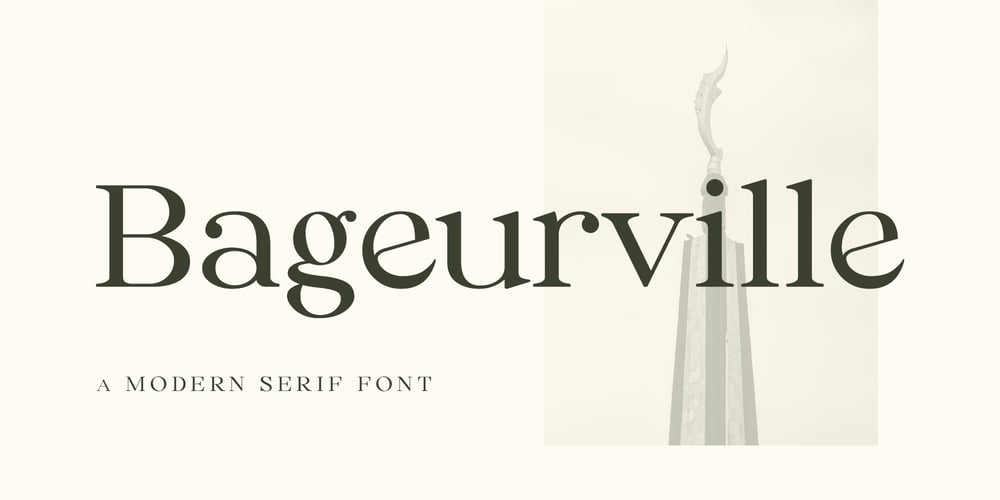
Bageurville
Bageurville font
Bageurville Font Family was designed by Muhammad Alvian Hasby and published by Alvian Hasby. Bageurville contains 2 styles and family package options. Bageurville is a modern serif inspired by a transitional style. Built with curved characters and rounded shapes on the ears and terminals that are formed based on circles, making them have kindness and historical touch. Bageurville has more than 250 glyphs, basic ligatures, and support multilingual. Nicely suitable for title or body purposes such as books, editorials, invitations, greeting cards, and branding.